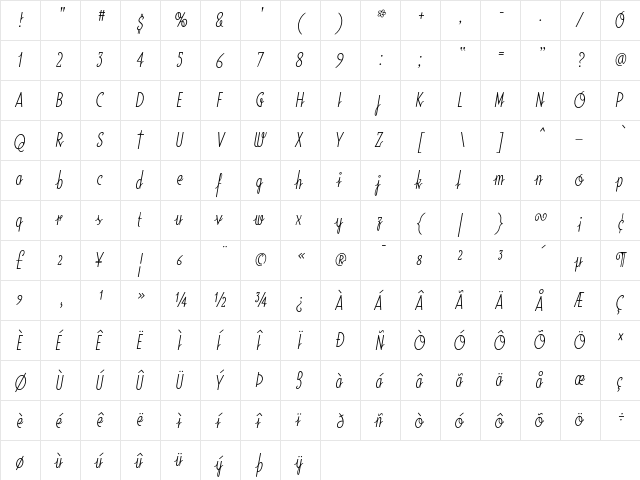
Soda ScriptLight
Design Context for Soda Typeface
Soda brings a calligraphic fluidity to the page — its connecting strokes and expressive curves give it an unmistakably human quality. Its slender proportions lend an understated elegance to any composition.
Font Pairing: Combine Soda with a simple geometric sans for maximum contrast — the tension between flowing curves and clean structure is a classic typographic pairing.
Pro Tip: Use Soda for short runs of text — names, titles, or taglines. Extended body copy in script faces tires the eye quickly.